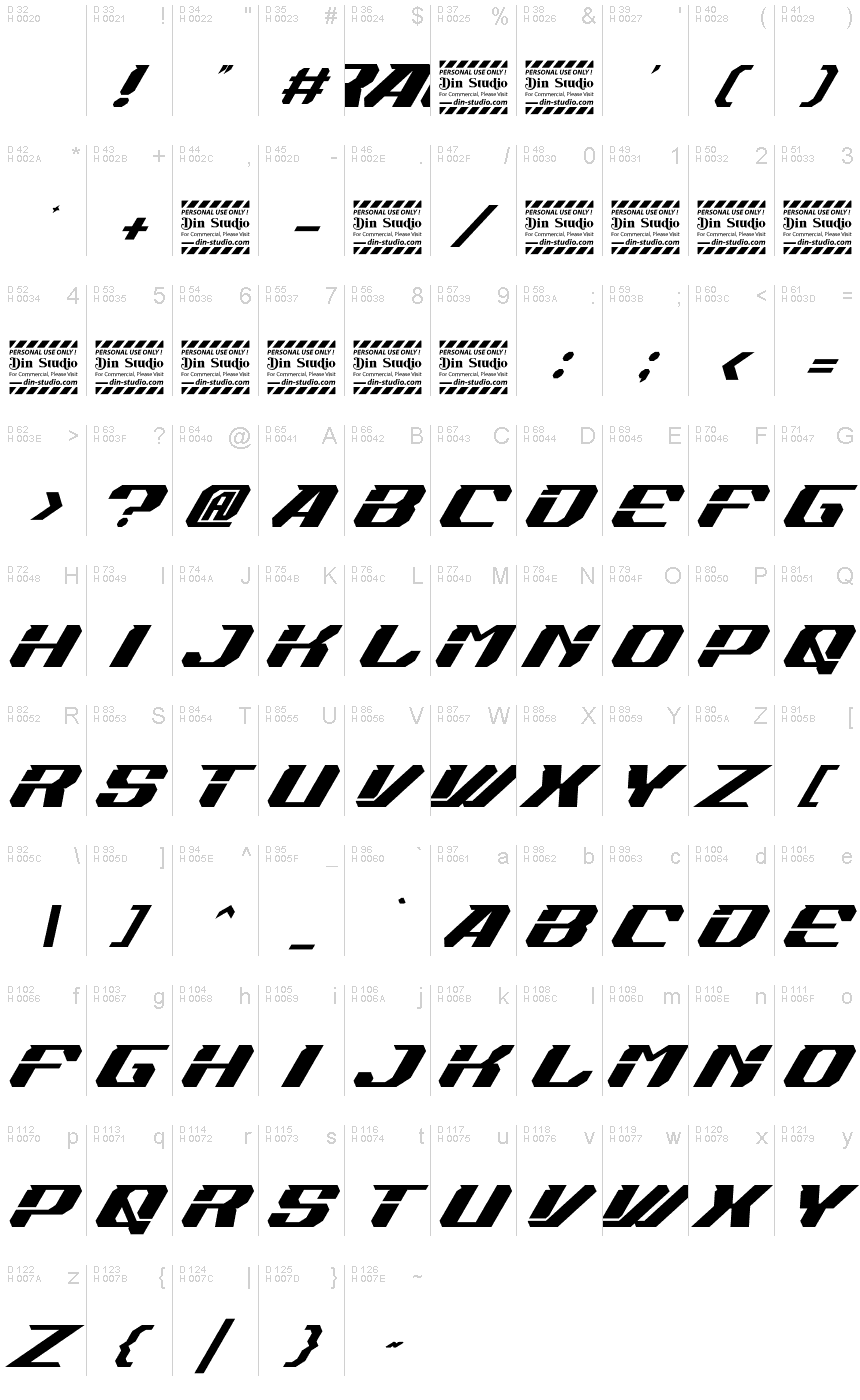
Hirace Personal Use
Hirace, a bold creation by Din Studio, embodies the future-forward essence of display fonts with its techno style that commands attention. Its sharp, clean lines and impactful presence offer an aesthetic that's both modern and versatile. The font’s weight contributes to its assertive character, making it a standout choice for projects that aim to make a strong statement.
The sleek geometry of Hirace is reminiscent of digital precision and electronic speed—key attributes for designs in the realms of gaming, technology branding, or any creative work seeking a cutting-edge vibe. Whether applied to logo design, poster art or online media, Hirace offers clarity and style that elevates text to an experiential level.
With its distinctive appearance, Hirace proves to be more than just type on a page—it's an invitation to engage with content in a dynamic and contemporary way.